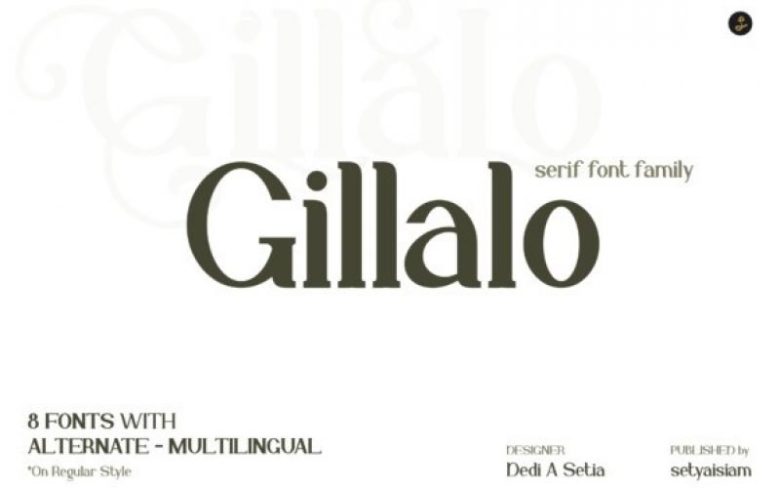
Gillalo Font
Gillalo Serif Font is a classy elegant type with a collection of ligatures and alternates that will make your branding looks established.
This typeface is perfect choice for people looking for clean, modern, minimalist, elegant, beauty design styles. Suitable for almost any graphic designs such as logo, branding materials, business cards, gift cards, t-shirt, cover, thumbnail, print, poster, photography, quotes, etc.